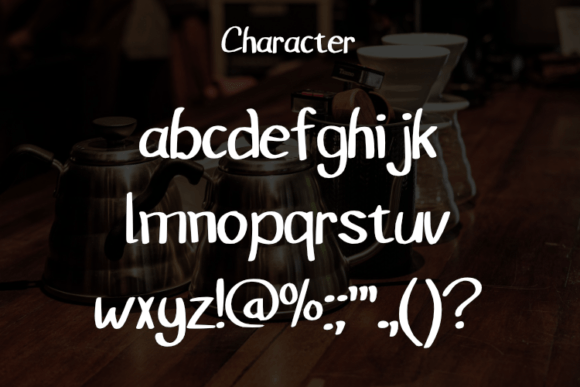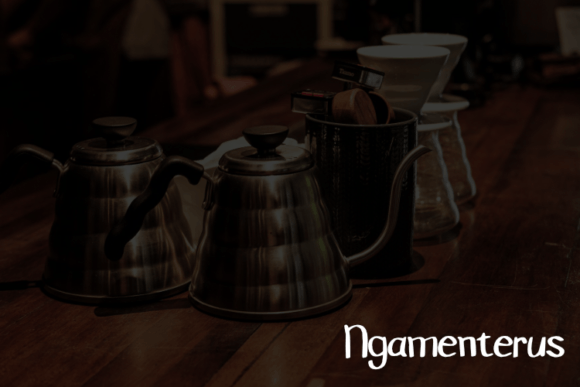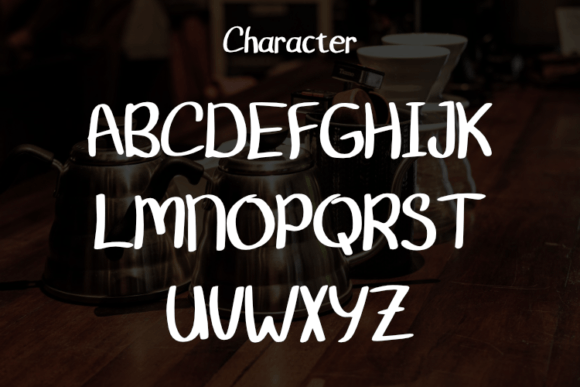
Introduction to Ngamenterus Font
Imagine you’re working on a creative project, and you’re struggling to find the perfect font that captures the essence of your design. You scroll through countless options, but none of them seem to fit the bill. That’s where the Ngamenterus Font comes in – a beautiful, script-typeface that’s sure to elevate your design to the next level.
With its simple yet modern style, the Ngamenterus Font is perfect for creating elegant and luxurious designs. Whether you’re working on a logo, book or movie title, fashion brand, magazine, or clothing line, this font is sure to impress. And the best part? It’s available for free download, making it an invaluable resource for designers of all levels.
As a valuable addition to your design arsenal, the Ngamenterus Font offers a high-quality, transparent background that’s perfect for any creative project. Its versatility and sophistication make it a must-have for designers looking to take their designs to the next level.
Key Features of Ngamenterus Font
- Unique, high-quality design ideal for creative projects
- Perfect for designers, artists, and creatives seeking a distinctive, modern font for their projects
Honest Review: Ngamenterus Font
As a designer, I’m always on the lookout for high-quality fonts that can elevate my creative projects. Recently, I stumbled upon the Ngamenterus Font, and I’m excited to share my thoughts on it.
What works well about Ngamenterus Font is its unique and creative style. It’s perfect for projects that require a touch of sophistication and elegance. I particularly love the fact that it comes in a transparent background option, making it easy to customize and layer over other design elements.
- ✨ Unique and creative style
- ⚠️ Limited font styles available, which might not be suitable for all projects
Overall, I’m impressed with the Ngamenterus Font, and I think it’s a great addition to any designer’s toolkit. While it may have some limitations, its unique style and free download make it an excellent design resource for creative projects.